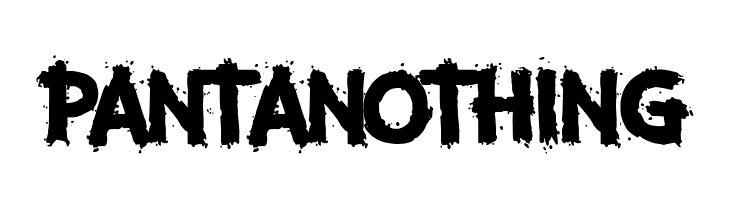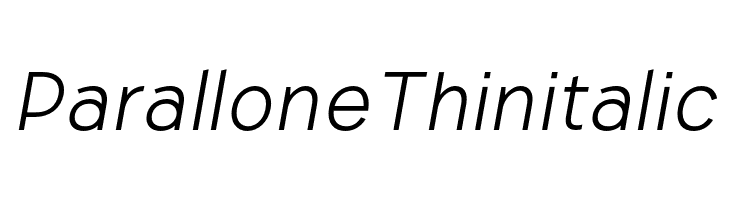
• Palanquin Thin
A modern, thin sans-serif font with clean lines and balanced spacing.
• Pantano Thing
A bold, distressed font with a grunge aesthetic and textured appearance.
• Panton Narrow-Trial Thin
A sleek, modern, and narrow font with a thin, geometric design.
• Panton Narrow-Trial Thin Italic
A sleek, narrow, and italicized font with a modern and elegant style.
• Panton-Trial Thin
A sleek, modern typeface with thin, uniform strokes and geometric influences.
• Panton-Trial Thin Italic
A sleek, modern thin italic font with elegant strokes and a refined appearance.
• Paradise Thin Demo
A sleek, high-contrast serif font with elegant, elongated letterforms.
• Paradise Thin Demo Italic
A thin, italicized font with high contrast and elegant style.
• Parallone Thin
A clean, minimalist font with thin strokes and rounded edges.
• Parallone Thin italic
A thin, modern, and slightly italicized font with a clean, minimalist design.